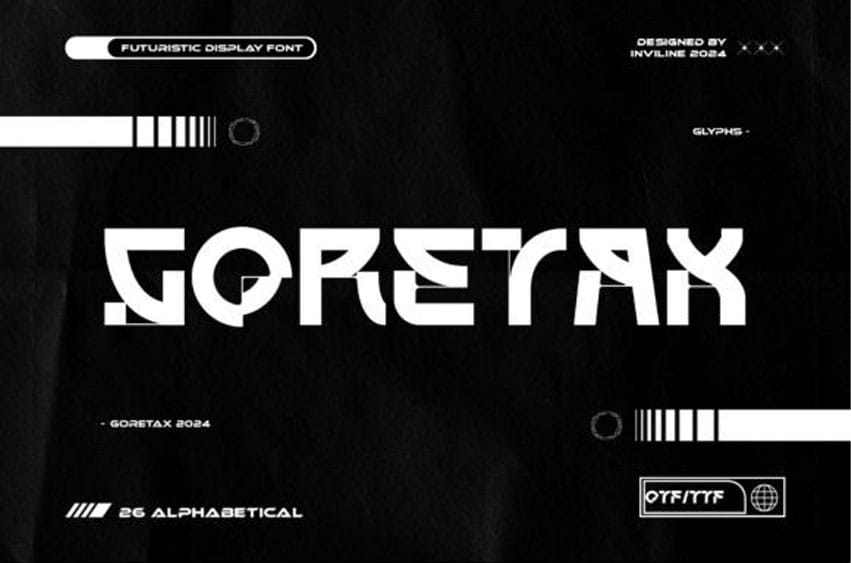
Goretax Font is a futuristic experimental display font with deconstructed shapes and sharp modular forms. Designed for creators who want to break the grid, GORETAX is ideal for sci-fi visuals, tech branding, abstract poster design, and digital interfaces.
Its unique geometry and cybernetic edge bring a bold, alien-like identity to your type. Includes 26 uppercase glyphs in OTF/TTF formats.